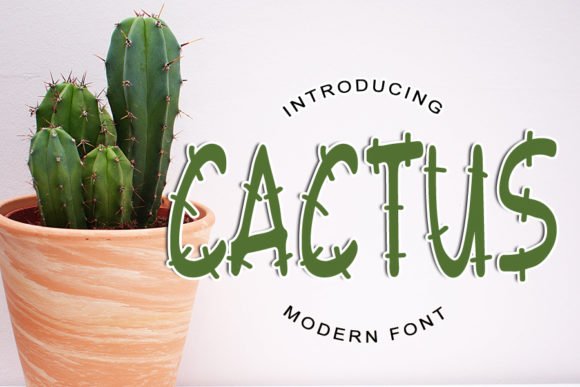
The Perfect Touch: Unveiling the Cactus Font
Imagine you’re sitting at your desk, surrounded by scraps of paper, colorful pens, and a dash of creativity. You’re working on a new project, and you need that one special element to make it stand out from the crowd. That’s when you stumble upon the perfect solution – a font that’s as fresh as a desert morning and as vibrant as a cactus bloom.
Enter the Cactus Font, a modern display font designed to add a touch of whimsy and elegance to your creations. Whether you’re crafting handmade cards, designing digital art, or presenting your latest ideas, this font is the perfect companion. Its simplicity belies a strong visual effect that’s sure to captivate your audience.
For designers, the Cactus Font is a valuable addition to their toolkit. Its versatility and charm make it an ideal choice for a wide range of projects, from greeting cards to presentations and beyond. So why settle for ordinary when you can add a dash of Cactus Font magic to your creations?
Cactus Font Key Features
- Font Family: Cactus Font is a sans-serif font family with a unique, modern design.
- Unique Characteristics: Features a distinctive, hand-drawn feel with subtle irregularities and unique letterforms.
Cactus Font Review
I recently had the chance to dive into the Cactus Font, and I must say it’s quite an interesting specimen. Let’s break it down, shall we?
- The cactus-inspired design is unique and visually striking. It’s definitely a conversation starter.
- The font is highly customizable, making it easy to adapt to various design needs.
- It’s also surprisingly readable, even at smaller font sizes.
- The font may be a bit too ‘out there’ for some users, who prefer more traditional or conservative designs.
- It can be a bit difficult to pair with other fonts, as its distinctiveness may clash with more subtle choices.
- Some users may find the irregular shape of the letters to be distracting or hard to read at first.
Overall, I think the Cactus Font is a solid choice for designers who want to add some personality to their work. It’s definitely not for everyone, but if you’re looking to make a statement, it’s worth considering. Just be mindful of its limitations and use it thoughtfully.
The Cactus Font is ideal for:
– Creating eye-catching titles and headings
– Designing unique and playful logos
– Adding a touch of whimsy to your brand identity
– Creating engaging social media graphics and ads